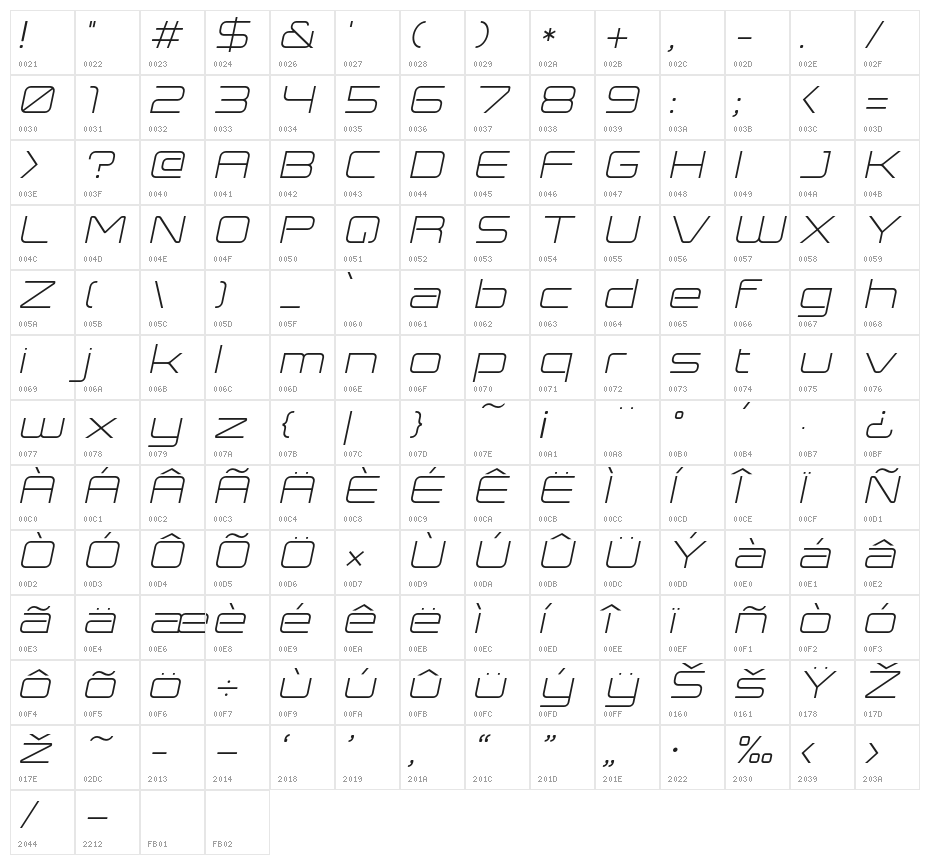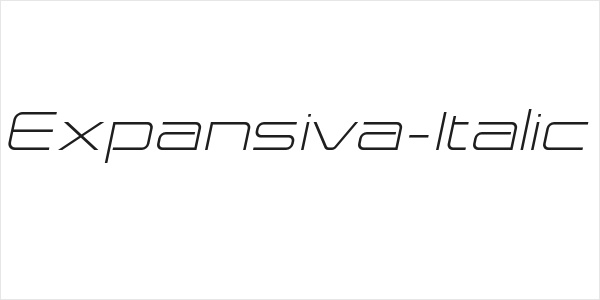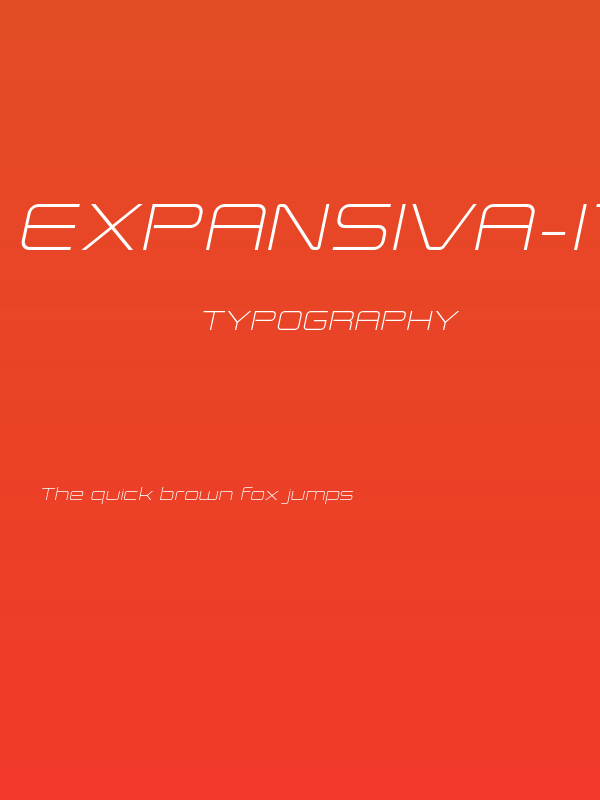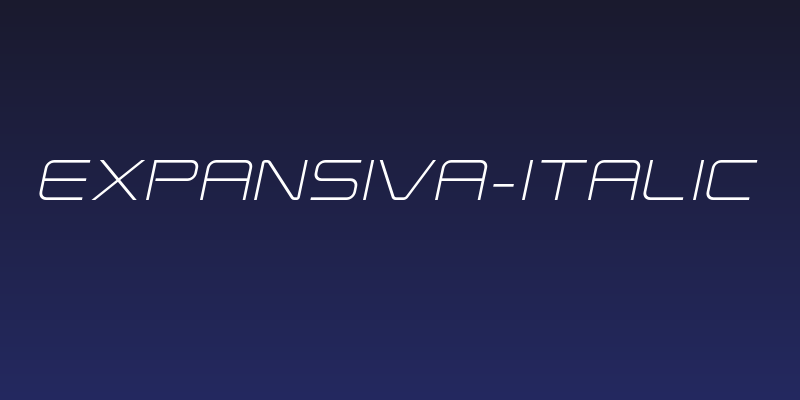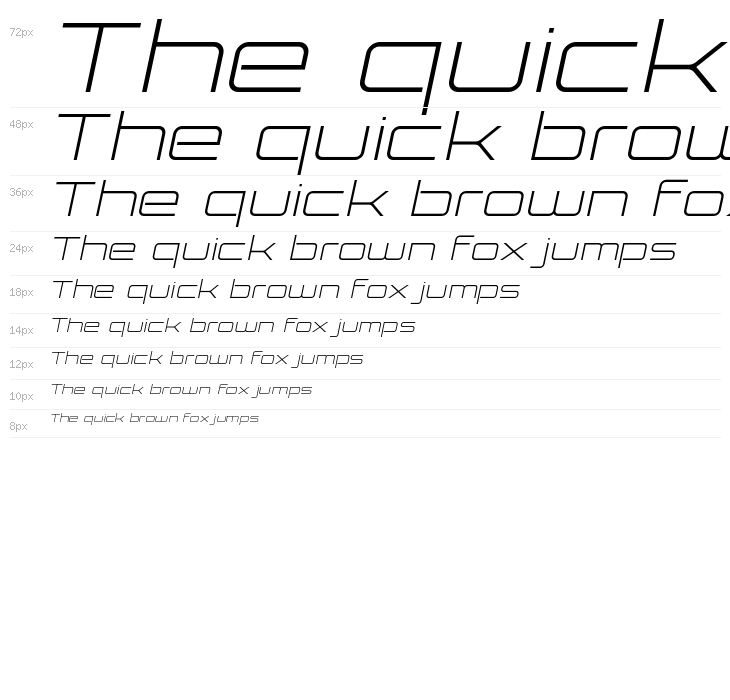
Expansiva-Italic Font
Expansiva-Italic Description
This font features a sleek, modern design with a distinct italic slant, giving it a dynamic and forward-moving appearance. The characters are constructed with clean, geometric lines and open counters, providing a sense of clarity and precision. The uppercase and lowercase letters maintain a consistent style, with a slight variation in stroke width that adds subtle depth. The numerals and special characters are designed to complement the alphabet, ensuring a cohesive look across all text. This font's minimalist aesthetic and contemporary feel make it suitable for a variety of design applications.
| Use Case | Headlines, Logos, Digital interfaces |
| Proposed Projects | Ideal for tech branding, modern advertising, digital interfaces, and futuristic designs. |